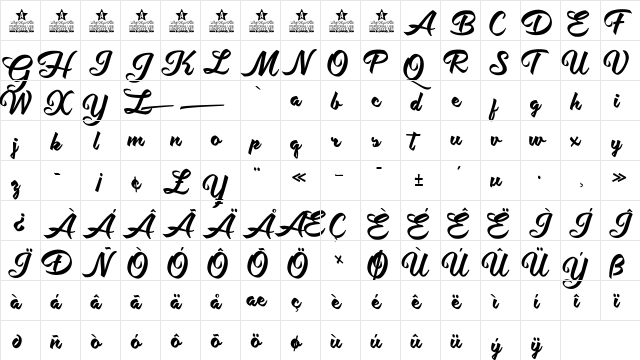
Hot Jacket Perrsonal Use Regular
Design Context for Hot Jacket Perrsonal Use Typeface
Hot Jacket Perrsonal Use is a composed and adaptable typeface that performs quietly and consistently across a wide range of design contexts.